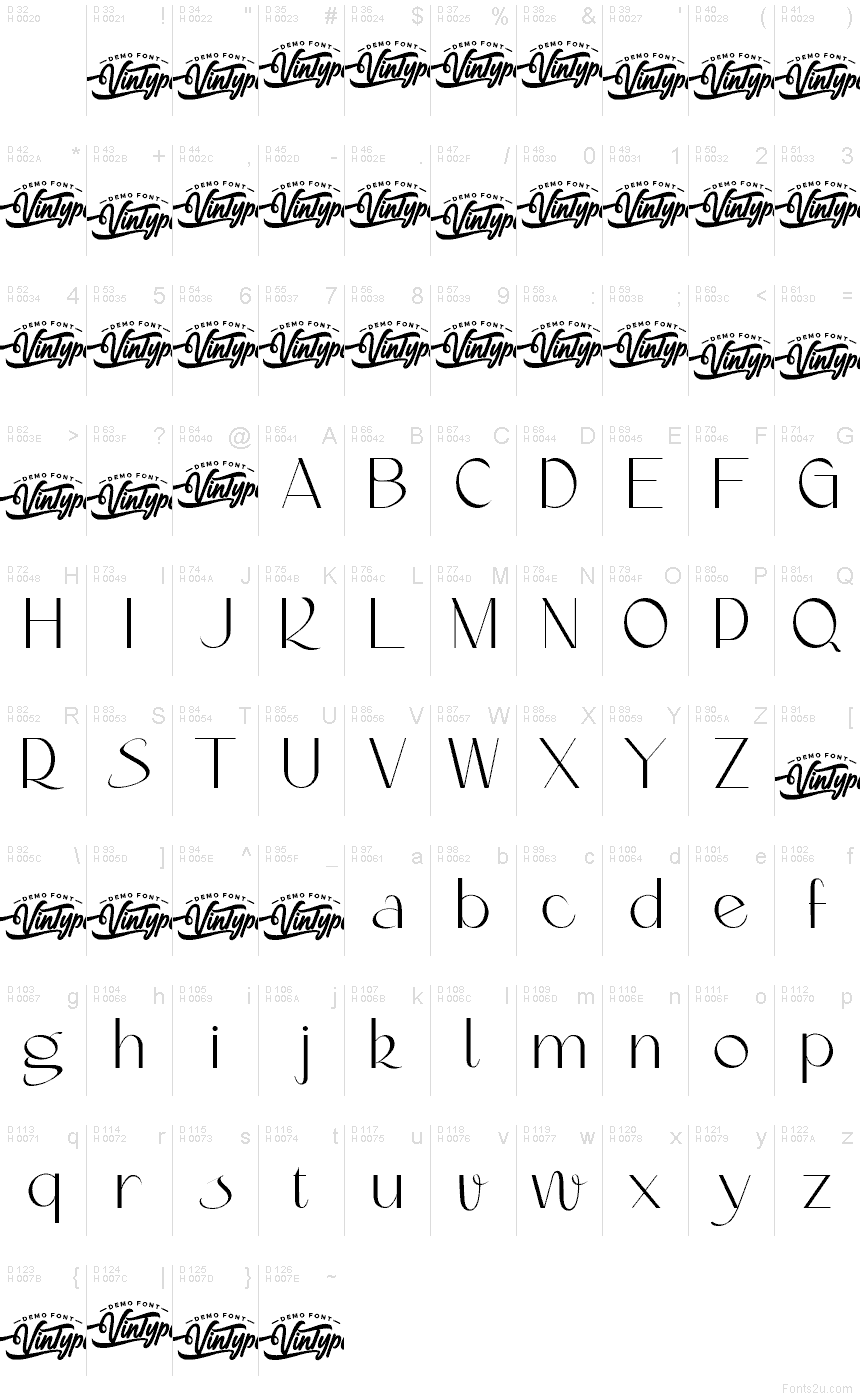
Yellow Element Demo
Yellow Element font by VinType is a free decorative sans serif typeface. Its defining charm is the gossamer-thin strokes that dip into playful, calligraphic curls, giving clean sans shapes a breezy, hand-touched spark. The letters feel airy and evenly spaced, so words shimmer rather than shout—elegant, light, and a little mischievous.
Using Yellow Element, headlines gain a graceful lift: boutique logos, beauty packaging, wedding stationery, fashion lookbooks, social quote cards, and magazine covers all benefit from its filament-fine rhythm. Keep this free font large to preserve its delicate lines, and pair it with a neutral grotesque for body text to let those subtle loops and swoops stay center stage.